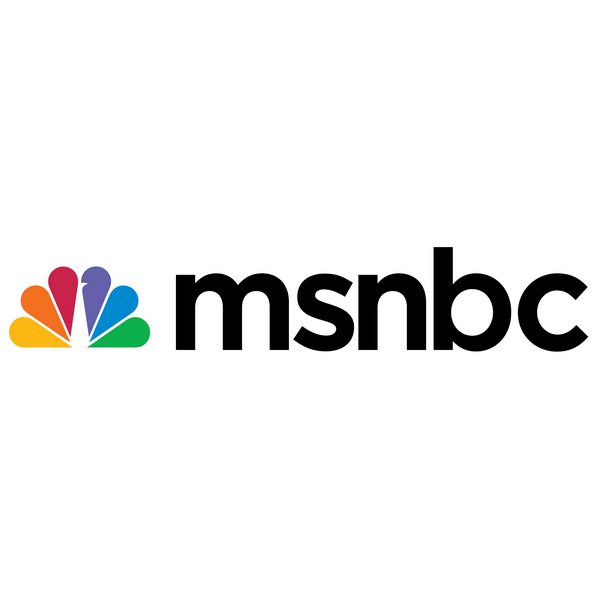
MSNBC Font
Fonts in UseMSNBC, a cable news channel owned by NBCUniversal, provides coverage of breaking news and political events. It launched in 1996 and is known for its liberal-leaning programming.
The logo of MSNBC showcases the well-known NBC rainbow peacock logo with the word "msnbc" on the right side. The logotype employs a font that resembles Gotham Medium, a commercial font that can be purchased here.